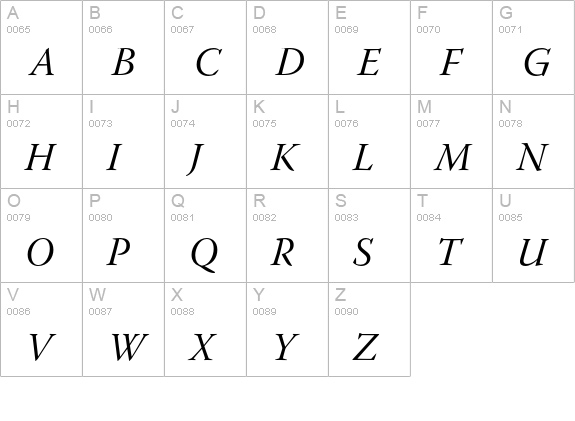
Warnock Pro Italic Subhead Font Details
Warnock Pro Italic Subhead is a distinctive, italic variant in the Warnock typeface family \xE2\x80\x94 well suited to design and typography projects.
Introducing Warnock Pro Italic Subhead, a captivating font that effortlessly combines elegance and modernity. With its sleek and stylish design, this font is perfect for adding a touch of sophistication to any project. Its subtle curves and flowing lines exude a sense of grace, making it ideal for use in subheadings, captions, and titles. Warnock Pro Italic Subhead is a versatile font that can easily adapt to a wide range of design styles. Whether you're working on a website, a brochure, or a branding project, this font will seamlessly integrate into your layout, enhancing the overall aesthetic appeal. One of the best features of Warnock Pro Italic Subhead is that it is available for free download at FontsMarket.com. This means that you can access this stunning font without having to spend a penny. Simply visit FontsMarket.com, search for Warnock Pro Italic Subhead, and start using it in your designs right away. Not only is Warnock Pro Italic Subhead visually captivating, but it also offers excellent legibility. Its carefully designed letterforms ensure that your text remains clear and easy to read, even at smaller sizes. This makes it a fantastic choice for both print and digital applications. Whether you're a professional designer or a creative enthusiast, Warnock Pro Italic Subhead is a must-have font in your collection. Its versatility, elegance, and free availability make it an invaluable resource for all your design needs. So head over to FontsMarket.com and elevate your designs with the timeless beauty of Warnock Pro Italic Subhead.